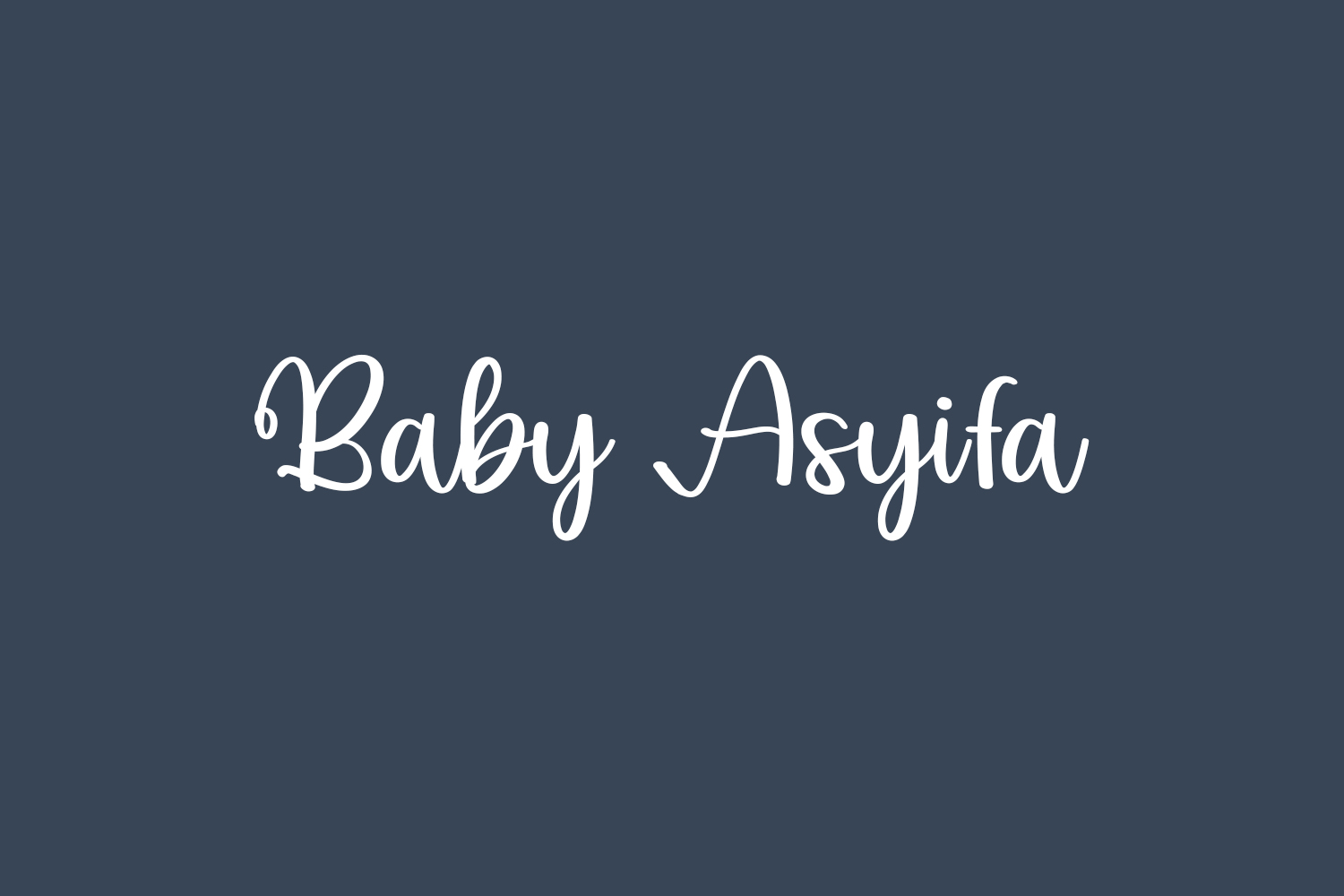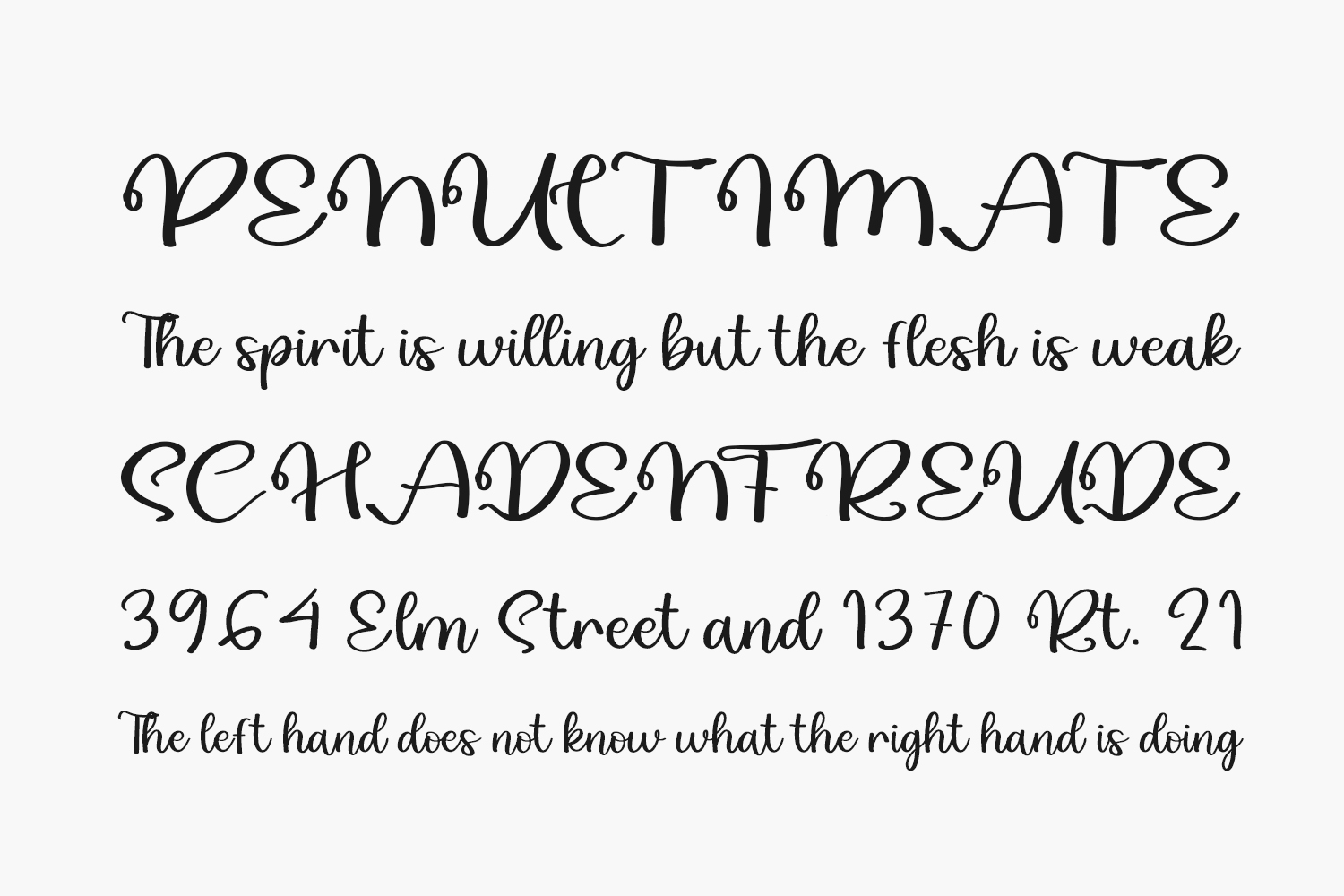
Baby Asyifa Free Font is a distinct graceful script font. It will elevate a wide range of crafting ideas, from cards, to branding, labels and much more. Baby Asyifa Free Font is free for personal use only. Please purchase the full version for commercial use.
Designed by Erlina Graphic